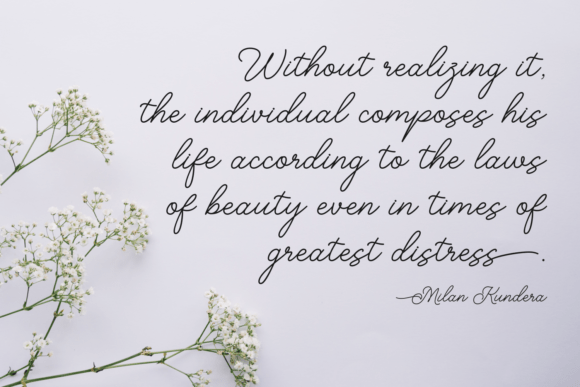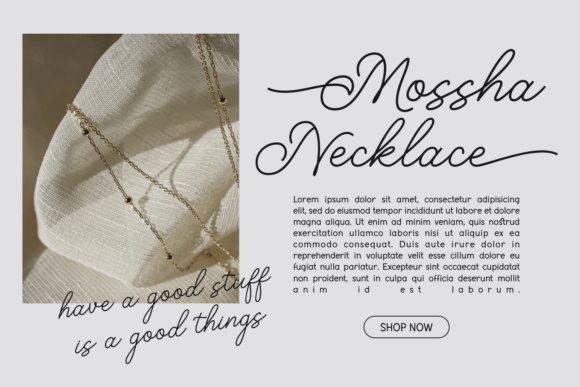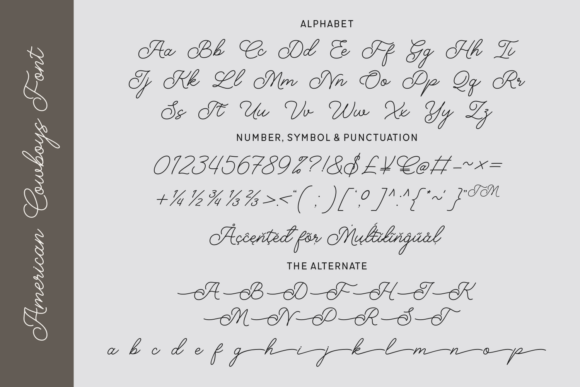
Introduction to American Cowboys Font
Introducing “American Cowboys”, a handwritten monoline script font that merges rustic charm with timeless elegance.
This font’s delicate, flowing strokes create an air of sophistication, making it perfect for upscale branding, wedding invitations, and stylish social media graphics Its graceful curves and smooth transitions offer a harmonious blend of modern calligraphy and handcrafted appeal.